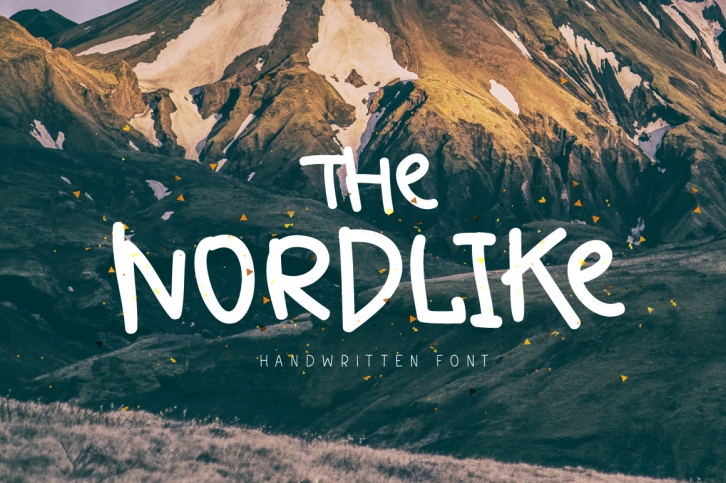
The Nordlike is a trendy and unique font with an authentic style. It was designed by chekart and it's a great choice for creative people who need such a font. It was released on June 14, 2017 and the file size is 14.62 MB. The Nordlike will add an organic vibe to any design idea!